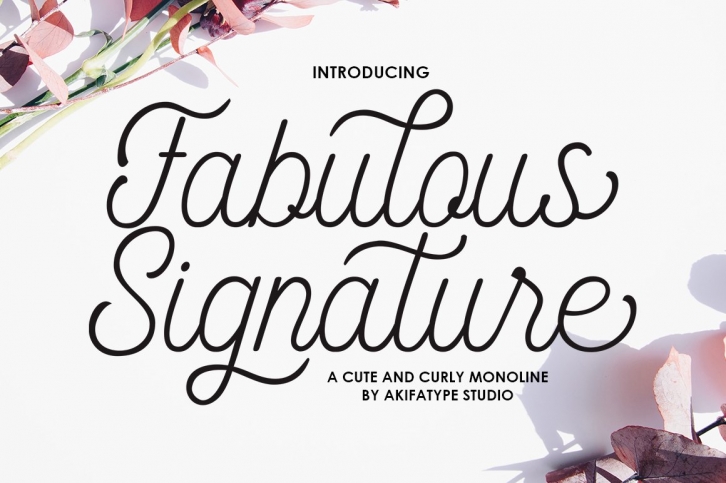
Fabulous Signature is a gorgeous font that was realeased on June 11, 2021. The font can be used in many style contexts and design environments. Perfect for invitations, magazines, websites, logos, and more! It was designed by akifatype and the file size is 11.72 MB. Thanks for checking out this font!